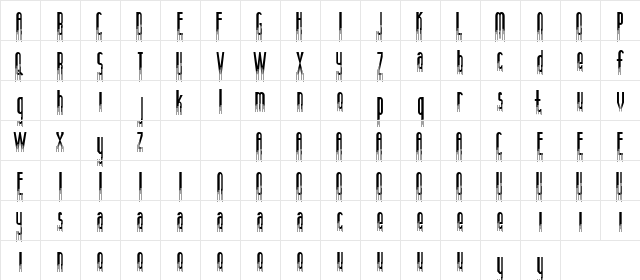
Anamelia Demo Lines Regular Free Font
Anamelia Demo Lines Regular
Foundry: Edric Studio
Designer: Muhammad Deyan S
Design Context for Anamelia Demo Lines
Anamelia Demo Lines is a composed and adaptable typeface that performs quietly and consistently across a wide range of design contexts.
Pro Tip: Use Anamelia Demo Lines in both headline and body roles to test its range before committing to a single application.